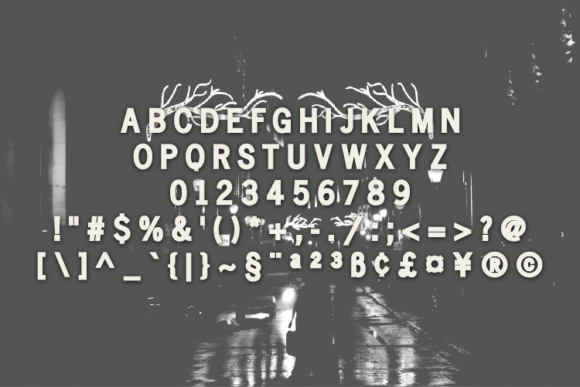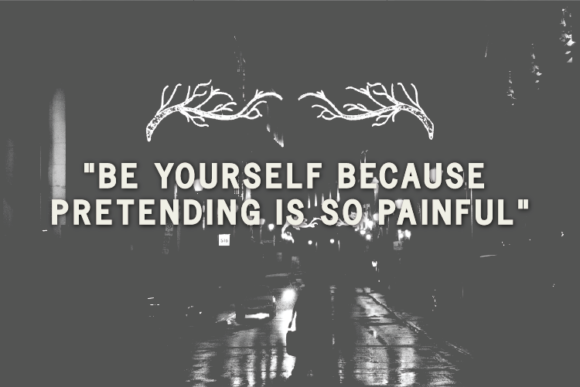
Introduction to Sholfero Font Font
Fonts play a crucial role in design, and the Sholfero Font font is a typeface that brings both character and versatility to any project. Whether you’re working on a branding project, a website, or a print design, the Sholfero Font font offers a unique style that can elevate your work.
Sholfero is a simple and thick lettered sans serif font.
It works GREAT for logos, branding, and web headings Add it confidently to your projects, and you wonβt be disappointed.
Key Features of Sholfero Font Font
Why Choose Sholfero Font Font?
The Sholfero Font font is more than just a typeface β it’s a design tool that helps you communicate your message with style and clarity. Its unique character set and versatile design make it suitable for a wide range of applications, from elegant invitations to bold headlines.
With its carefully crafted letterforms and balanced proportions, the Sholfero Font font ensures readability and visual appeal across all mediums.
What makes Sholfero Font font special?
The Sholfero Font font stands out with its unique design, exceptional readability, and versatility across various design applications.